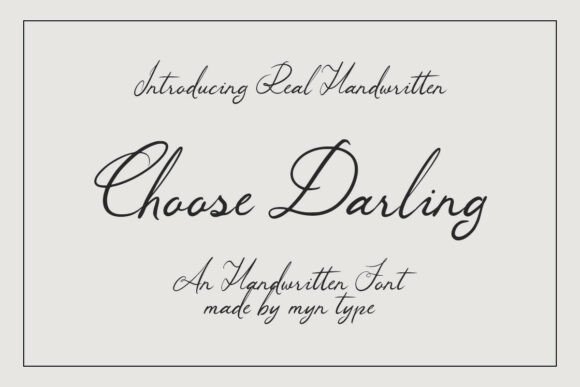
Choose Darling Font: The Ultimate Choice for Vintage and Classic Designs
Are you looking for a font that can add a touch of elegance and sophistication to your design projects? Look no further than Choose Darling Font. This beautiful, handwritten script calligraphy font is perfect for creating stunning designs that exude a sense of romance, vintage charm, and classic style.
What is Choose Darling Font?
Choose Darling is a fancy handwritten script calligraphy font that features a unique fusion of natural handwritten calligraphy with simple ornaments and classic touches. The font’s natural rhythm strokes give it a beautiful, fluid look that is reminiscent of traditional calligraphy. With its elegant and refined appearance, Choose Darling Font is the perfect choice for designers who want to create stunning, high-end designs that stand out from the crowd.
Key Features of Choose Darling Font
So, what makes Choose Darling Font so special? Here are just a few of its key features:
- Fusion of natural handwritten calligraphy with simple ornaments and classic touches: Choose Darling Font combines the beauty of natural handwritten calligraphy with simple ornaments and classic touches to create a truly unique and elegant font.
- Vintage, classic, and beautiful impression: The font’s natural rhythm strokes and elegant appearance give it a vintage, classic, and beautiful impression that is perfect for designs that require a touch of sophistication and elegance.
- Perfect for romantic designs: With its elegant and refined appearance, Choose Darling Font is perfect for designs that require a romantic touch, such as wedding designs, love letters, and Valentine’s Day cards.
Use Cases for Choose Darling Font
So, what can you use Choose Darling Font for? The possibilities are endless, but here are a few ideas to get you started:
- Wedding design: Choose Darling Font is perfect for wedding designs, such as wedding invitations, wedding cards, and wedding stationery.
- Branding: The font’s elegant and refined appearance makes it perfect for branding projects, such as logos, business cards, and letterheads.
- Calligraphy logos: Choose Darling Font is perfect for creating stunning calligraphy logos that exude elegance and sophistication.
- Display products: The font’s beautiful appearance makes it perfect for display products, such as posters, flyers, and brochures.
- Invitation design: Choose Darling Font is perfect for creating stunning invitation designs, such as birthday invitations, graduation invitations, and party invitations.
Why Choose Choose Darling Font?
So, why should you choose Choose Darling Font for your design projects? Here are just a few reasons:
- Unique and elegant appearance: Choose Darling Font has a unique and elegant appearance that is sure to make your designs stand out from the crowd.
- Perfect for romantic designs: The font’s elegant and refined appearance makes it perfect for designs that require a romantic touch.
- High-quality font: Choose Darling Font is a high-quality font that is designed to provide the best possible results.
- Easily readable: The font is easily readable, even at small sizes, making it perfect for a wide range of design projects.
Tips for Using Choose Darling Font
Here are a few tips for using Choose Darling Font in your design projects:
- Use it for headlines and titles: Choose Darling Font is perfect for headlines and titles, where its elegant and refined appearance can really shine.
- Pair it with a simple font: For body text, pair Choose Darling Font with a simple font to create a beautiful contrast.
- Experiment with different colors: Choose Darling Font looks great in a wide range of colors, so don’t be afraid to experiment and find the perfect color for your design.
In conclusion, Choose Darling Font is a beautiful, handwritten script calligraphy font that is perfect for designers who want to create stunning, high-end designs that exude elegance and sophistication. With its unique fusion of natural handwritten calligraphy with simple ornaments and classic touches, Choose Darling Font is sure to make your designs stand out from the crowd. Whether you’re creating wedding designs, branding projects, or display products, Choose Darling Font is the perfect choice.